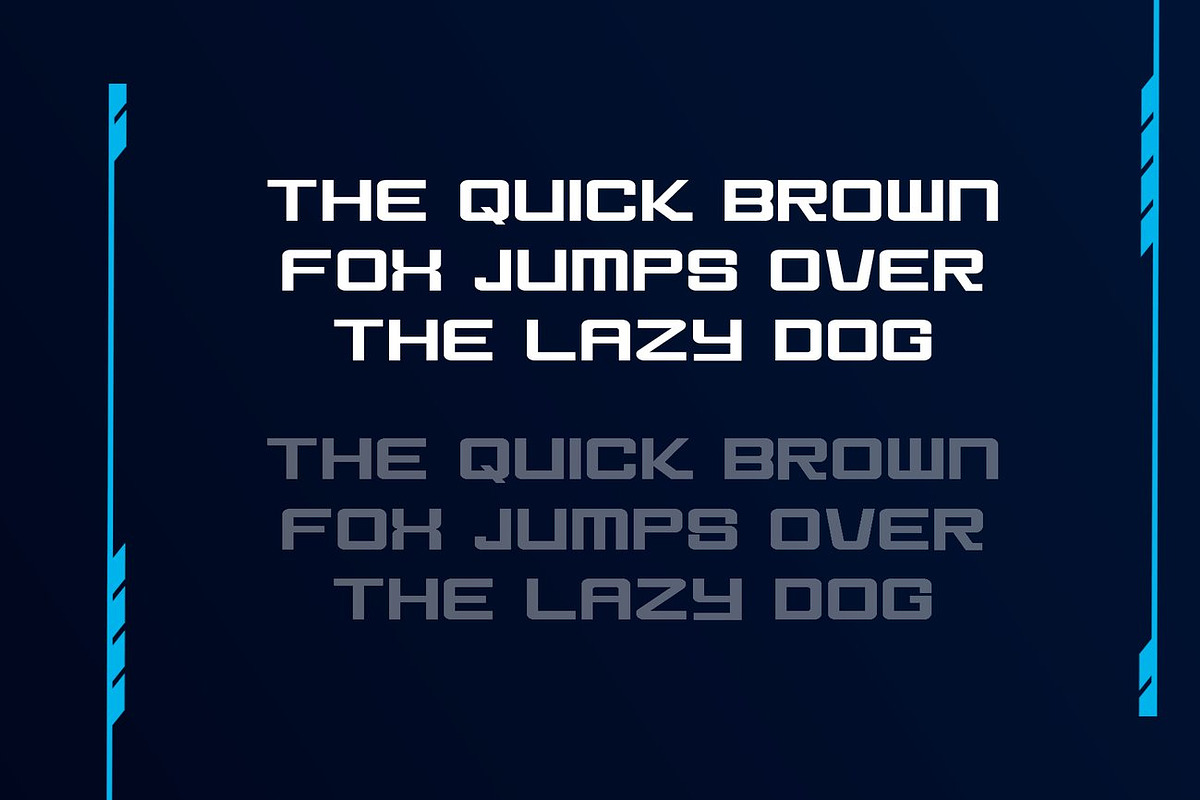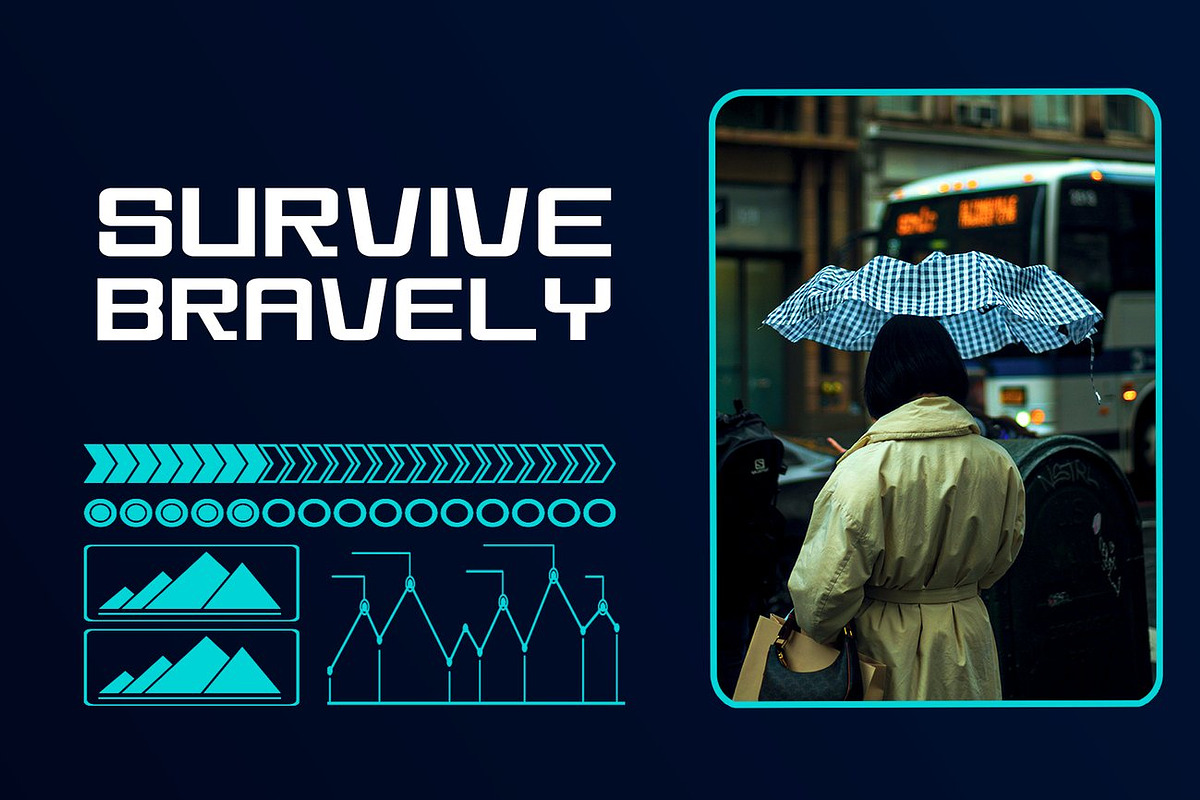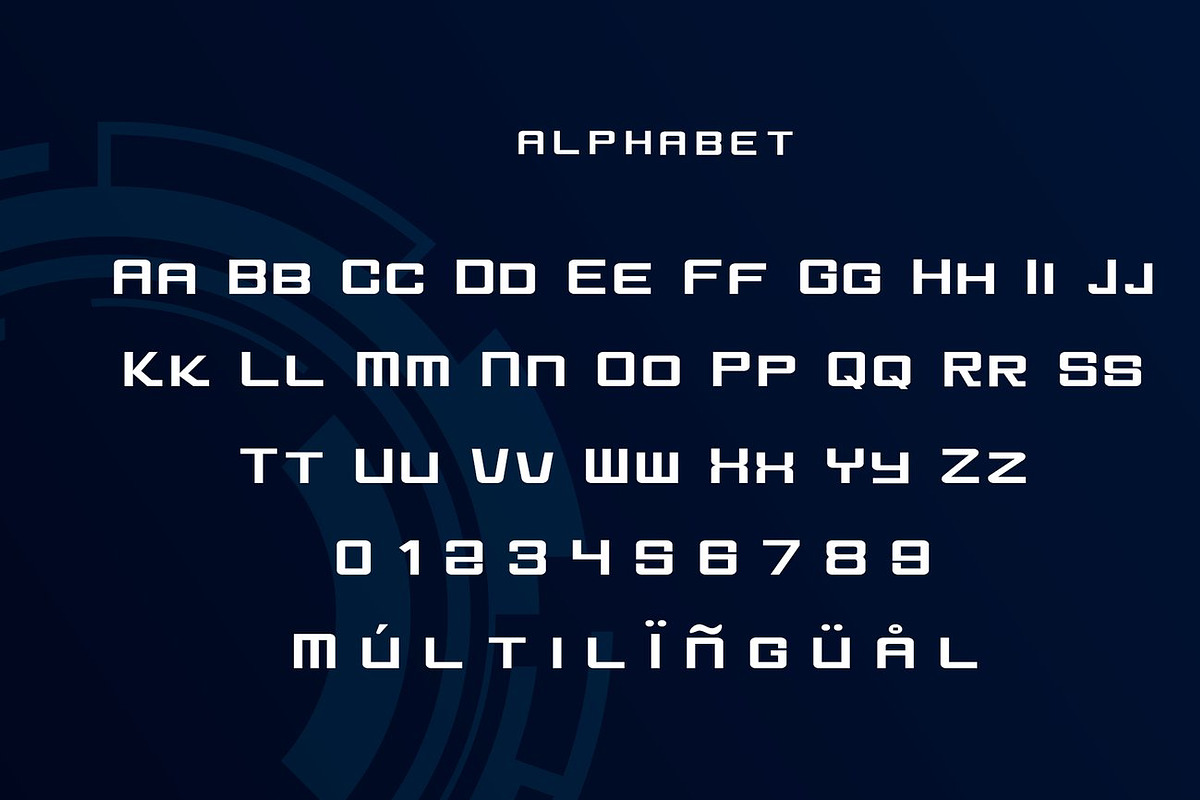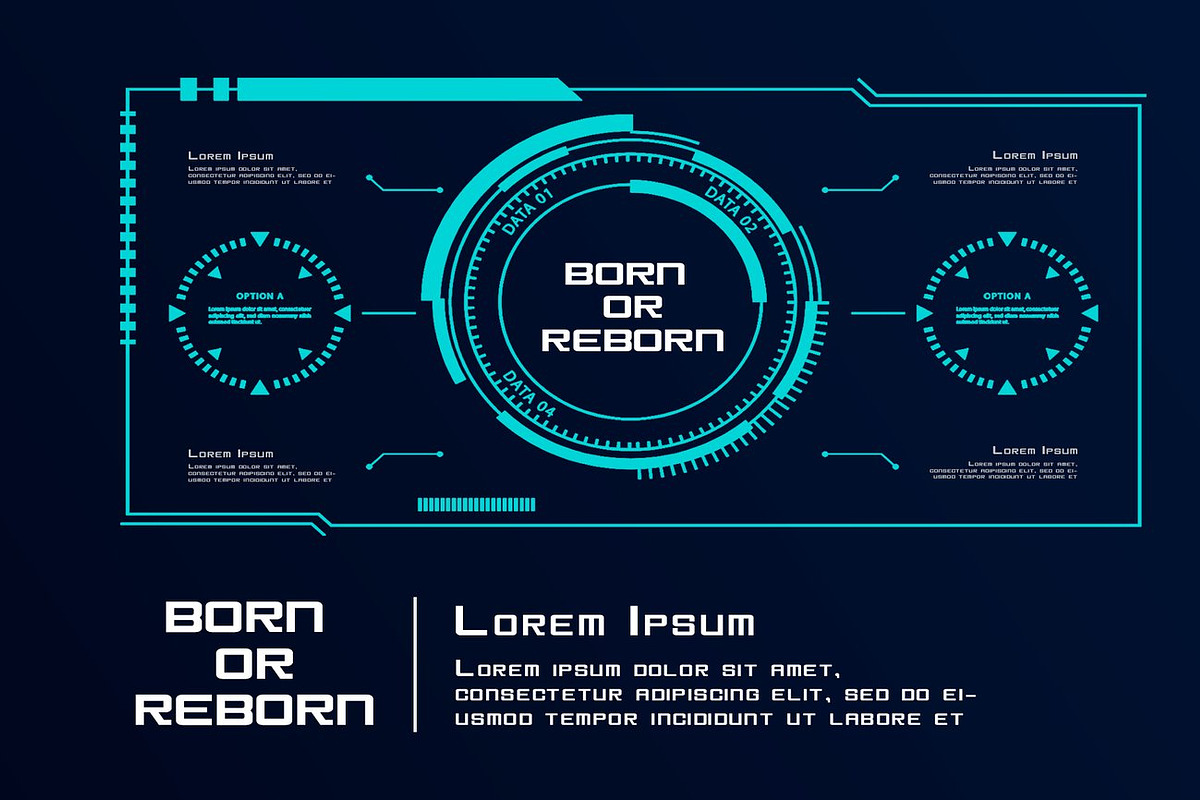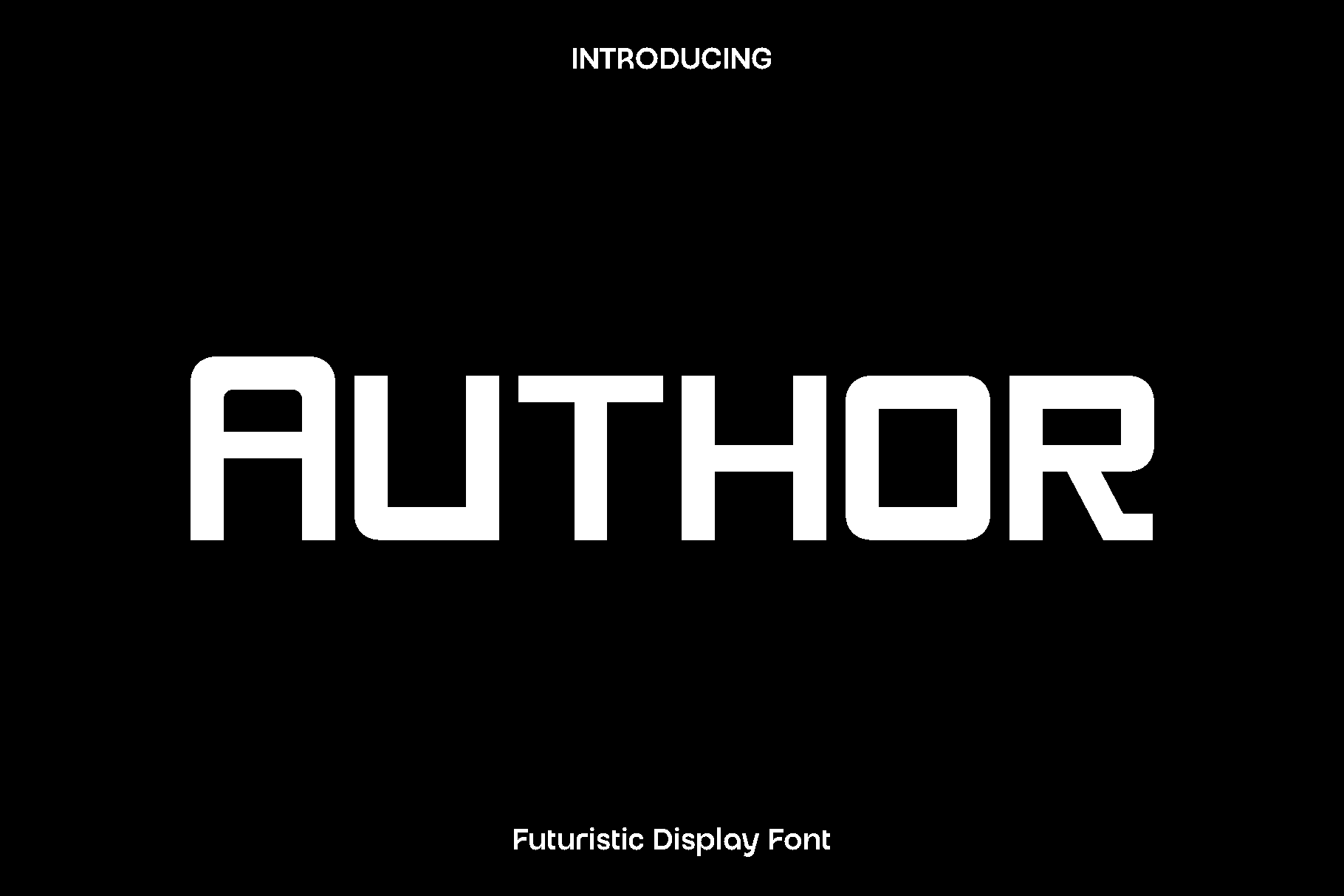
Author - Futuristic Display Font
Author is a cool and futuristic display font created for designers who want their typography to feel modern, bold, and distinctive. Inspired by digital aesthetics and forward thinking design, Author features clean shapes with a sharp personality that gives every word a confident and contemporary voice. Its unique structure makes it visually striking while remaining versatile enough for everyday creative use.
This font shines in web design, branding, business cards, logos, posters, and modern promotional materials. Author feels innovative and stylish, making it ideal for technology related projects, creative studios, startups, and digital platforms that want to stand out. The carefully designed alternates and ligatures allow you to create custom looking typography with smooth flow and visual interest.
Author is designed to be both expressive and practical. Its strong display style delivers impact in headlines, while its balanced proportions keep it readable across different layouts. Whether you are working on digital interfaces or printed designs, Author adds a futuristic edge that elevates your work and leaves a memorable impression.
Author Futuristic Display Font Features:
• Futuristic and stylish display characters
• Alternate and ligature characters included
• Uppercase and lowercase
• Numbers and punctuation
• OpenType features
• Multilingual support